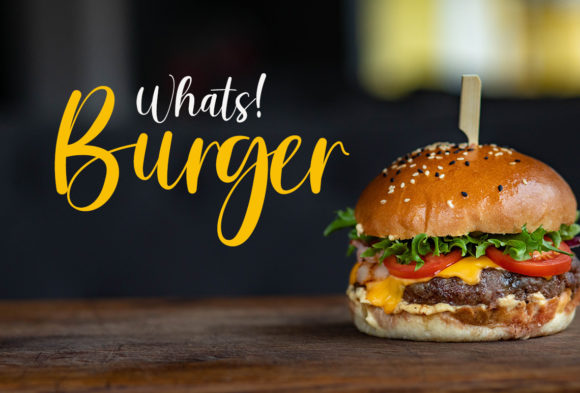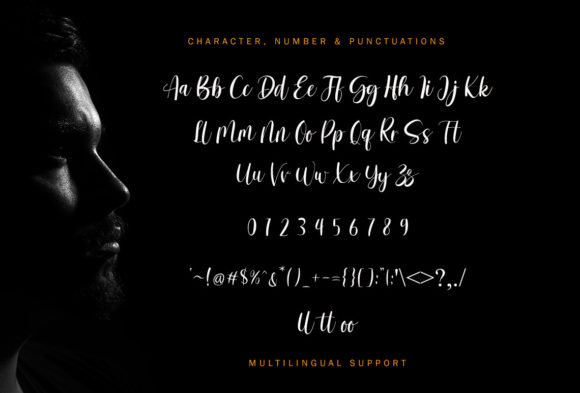
Bastian Walker Font
db-ku.com - Script & Handwritten -- Bastian Walker is a modern script font with a contemporary atmosphere and impeccable form. Whether you’re using it for crafting, digital designing, presentations or greeting cards making, it’s perfect!